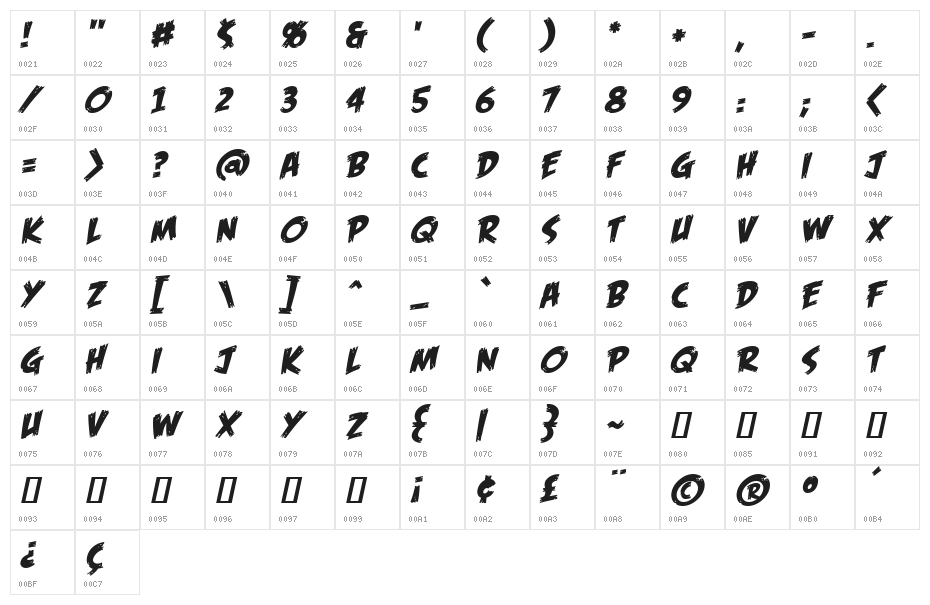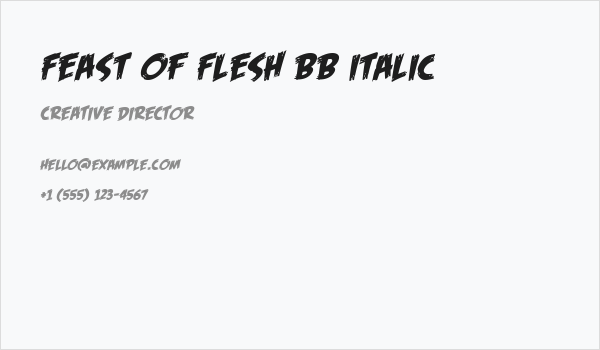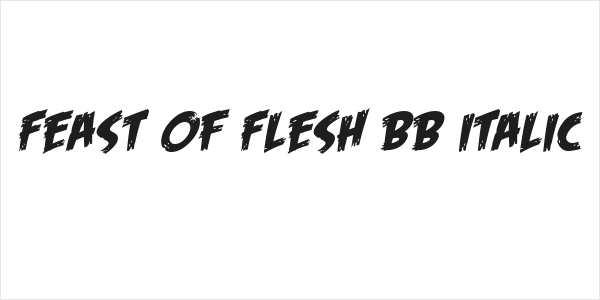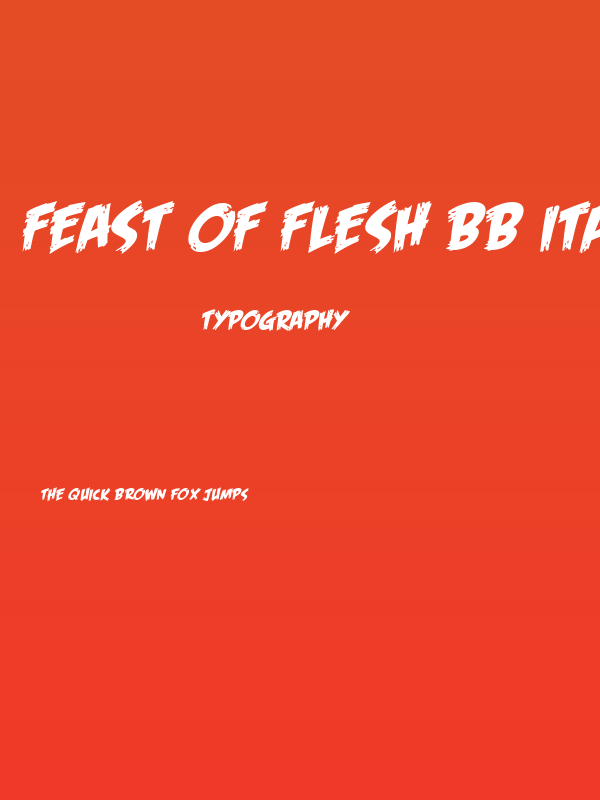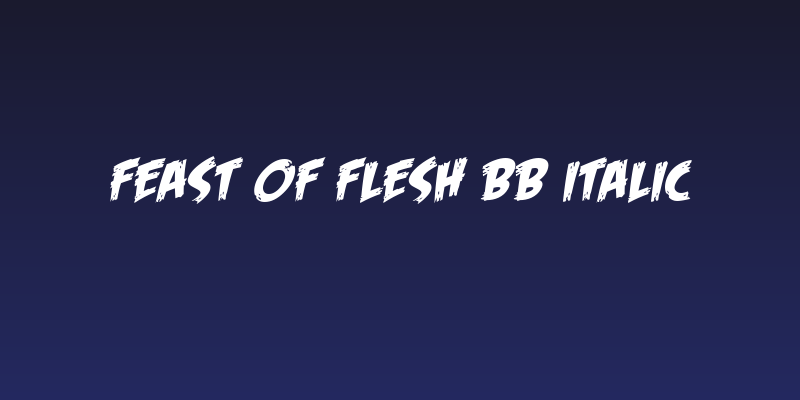
Feast of Flesh BB Italic Font
Feast of Flesh BB Italic Description
This font features a bold and aggressive style with jagged, brush-like strokes that give it a raw and energetic appearance. The characters are italicized, adding a sense of motion and dynamism. The uppercase and lowercase letters maintain a consistent style, with sharp edges and irregular contours that suggest a hand-drawn or distressed aesthetic. The numbers and special characters follow the same design principles, ensuring uniformity across all glyphs. This font is particularly striking and commands attention, making it suitable for impactful design projects.
| Proposed Projects | Ideal for horror-themed posters, edgy album covers, or any project requiring a bold, dramatic typeface. |